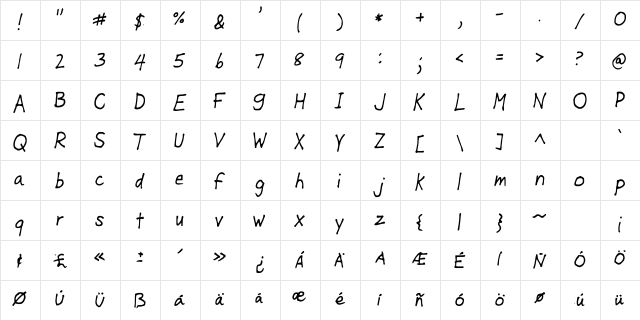
Guyer Medium
Design Context for Guyer Typeface
Guyer is a composed and adaptable typeface that performs quietly and consistently across a wide range of design contexts.